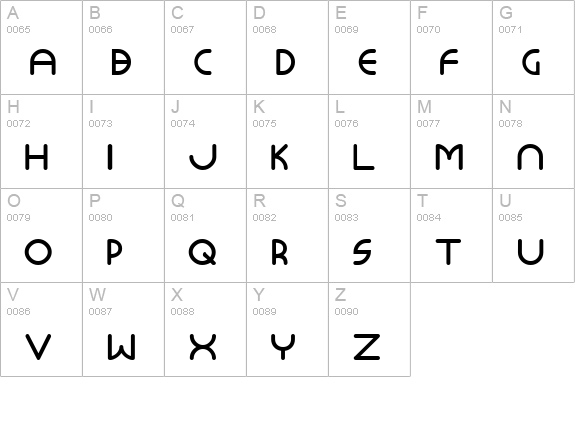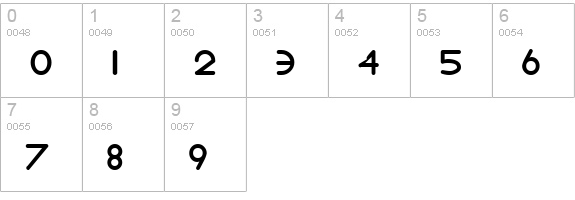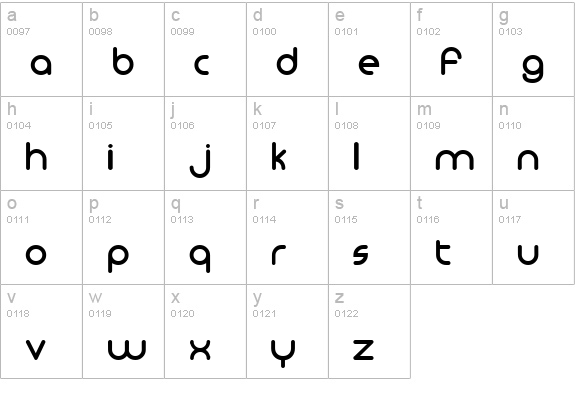
Monoglyceride DemiBold Font Details
Monoglyceride DemiBold is a sub-bold, structured variant in the Monoglyceride typeface family \xE2\x80\x94 well suited to sub-headlines and emphasised passages.
Monoglyceride DemiBold font is a versatile and modern typeface that adds a touch of sophistication to any design project. With its clean lines and bold appearance, this font is perfect for headlines, titles, and other prominent text elements. The Monoglyceride DemiBold font strikes the perfect balance between professionalism and creativity, making it suitable for a wide range of applications. This font is available for free download at FontsMarket.com, where you can easily access and incorporate it into your projects. Whether you're working on a website, branding materials, or print design, Monoglyceride DemiBold font will elevate your work and leave a lasting impression on your audience. Don't miss out on this opportunity to enhance your designs with this stylish and contemporary typeface.